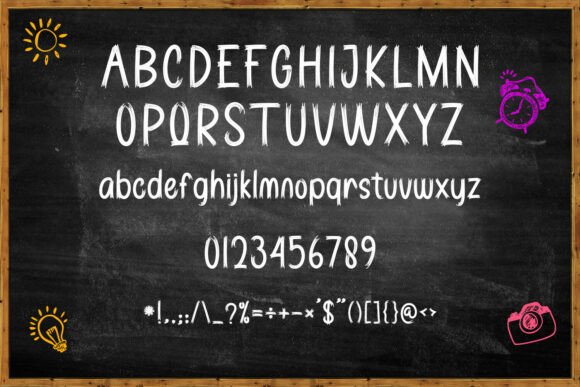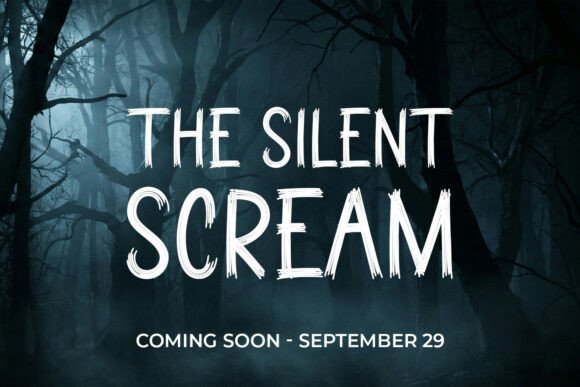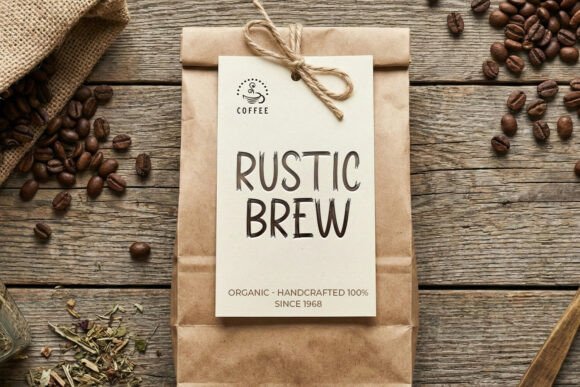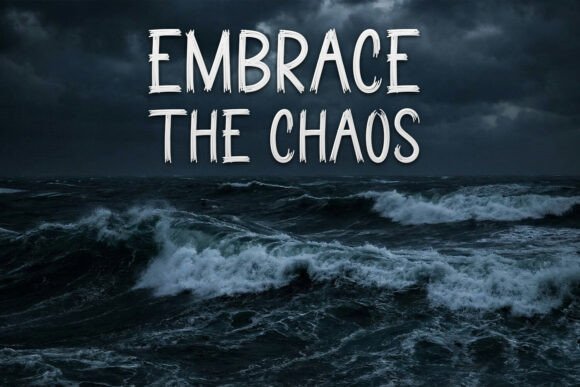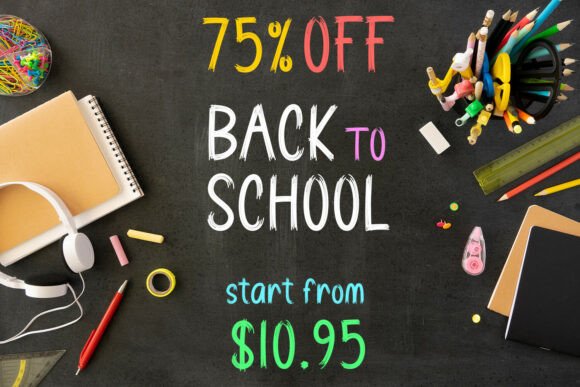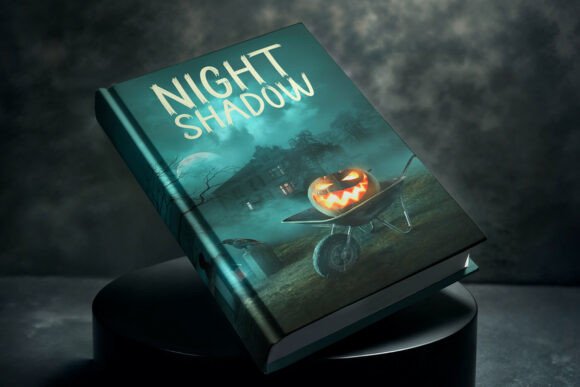
Jittery Font Font – Free Download
Introduction to Jittery Font Font
Fonts play a crucial role in design, and the Jittery Font font is a typeface that brings both character and versatility to any project. Whether you’re working on a branding project, a website, or a print design, the Jittery Font font offers a unique style that can elevate your work.
Jittery is a hand-drawn brush font pulsating with raw energy and authentic texture.
Designed to embrace the beauty of chaos, this display font features a unique βtremblingβ stroke style that looks like it was freshly painted with ink This Jittery typeface is all about texture; you can see the individual bristles of the brush in every stroke, making it feel tactile and immediate.
Key Features of Jittery Font Font
Why Choose Jittery Font Font?
The Jittery Font font is more than just a typeface β it’s a design tool that helps you communicate your message with style and clarity. Its unique character set and versatile design make it suitable for a wide range of applications, from elegant invitations to bold headlines.
With its carefully crafted letterforms and balanced proportions, the Jittery Font font ensures readability and visual appeal across all mediums.
What makes Jittery Font font special?
The Jittery Font font stands out with its unique design, exceptional readability, and versatility across various design applications.